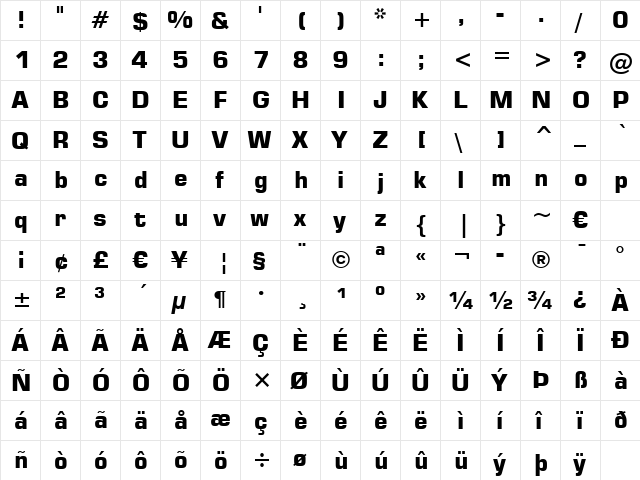
Square721 BT Bold Font Preview
Square721 BT Bold
Design Context for Square721 BT Typeface
Square721 BT takes a measured approach to typography — its balanced proportions and neutral character make it a reliable workhorse for both digital and print work. The heavy weight commands attention and anchors typographic hierarchies.